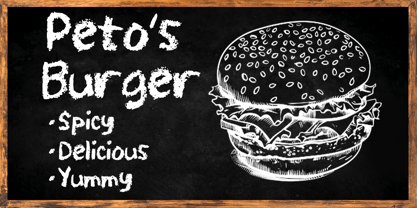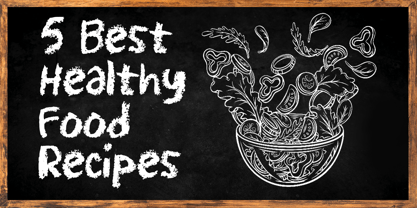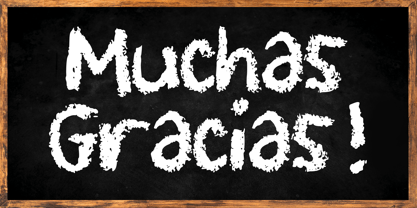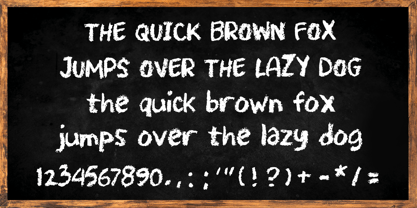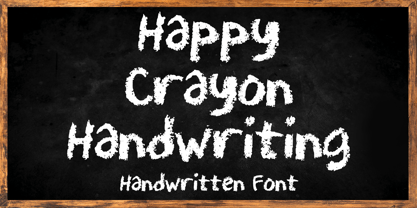
Happy Crayon Handwriting
von Mvmet
Die Schriftfamilie Happy Crayon Handwriting wurde von Gabriel Valentinus entworfen und von Mvmet veröffentlicht. Happy Crayon Handwriting enthält 1 Stile. Mehr über diese Familie
Unleash your creativity with Happy Crayon Handwriting, an exuberant handwritten font brimming with playful aesthetics. Infused with the charm of crayon, pencil, or chalk textures, this font is a delightful addition to any project. It transforms everything it touches—from artsy t-shirt designs and enchanting book layouts to captivating packaging and heartwarming greeting cards. Happy Crayon Handwriting is your secret weapon for stickers and posters or any design that craves a casual touch. Embrace its versatile style and watch as it weaves magic into your creations!
Designer: Gabriel Valentinus
Foundry: Mvmet